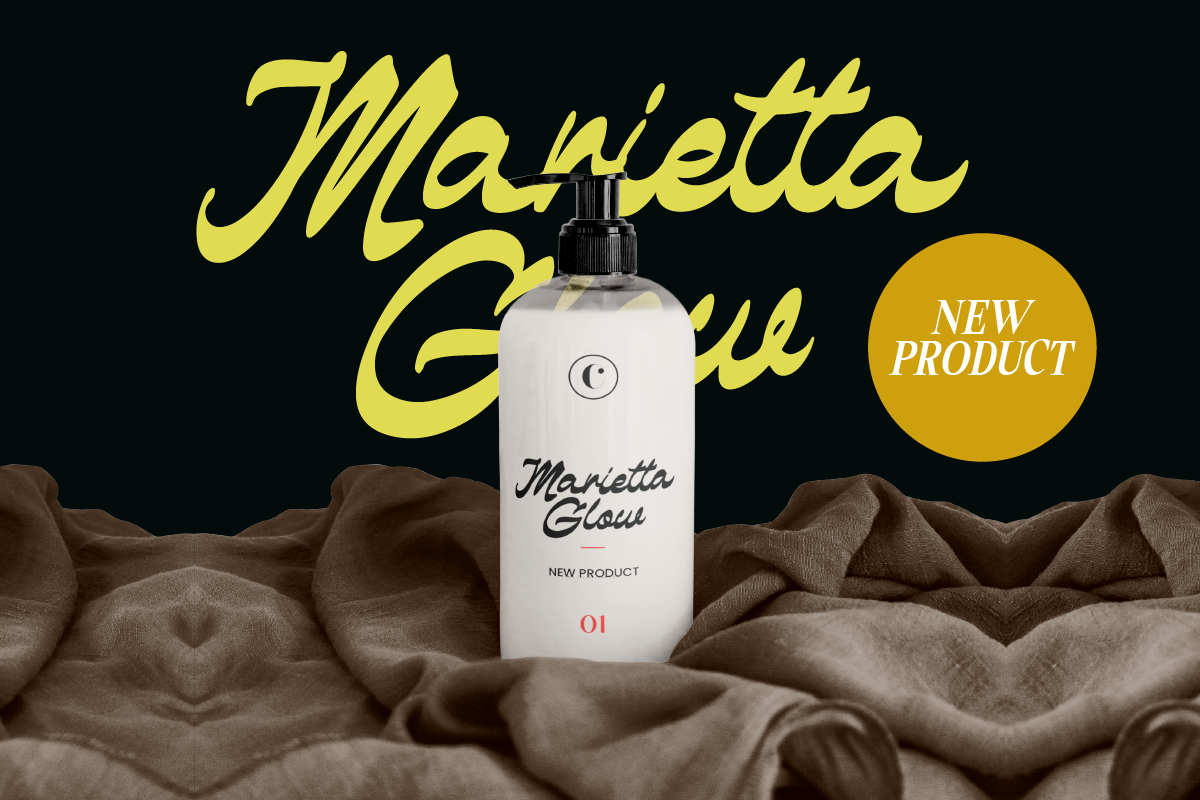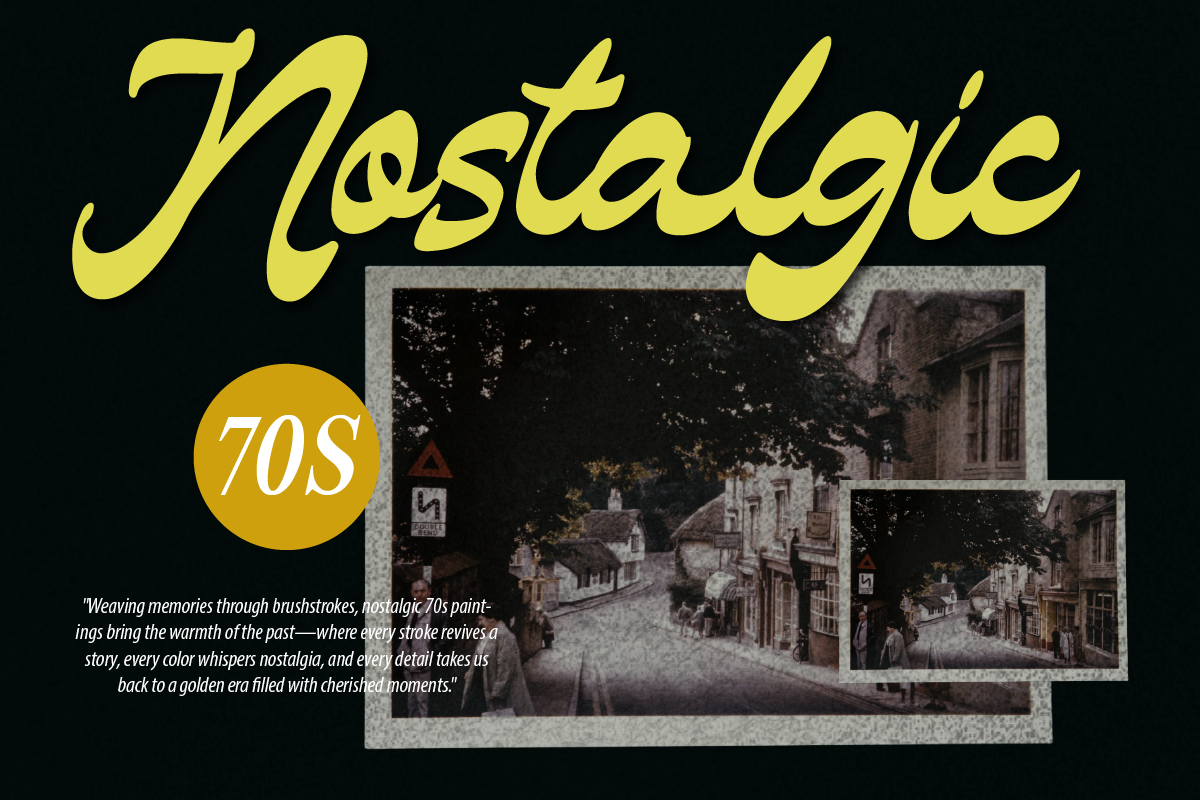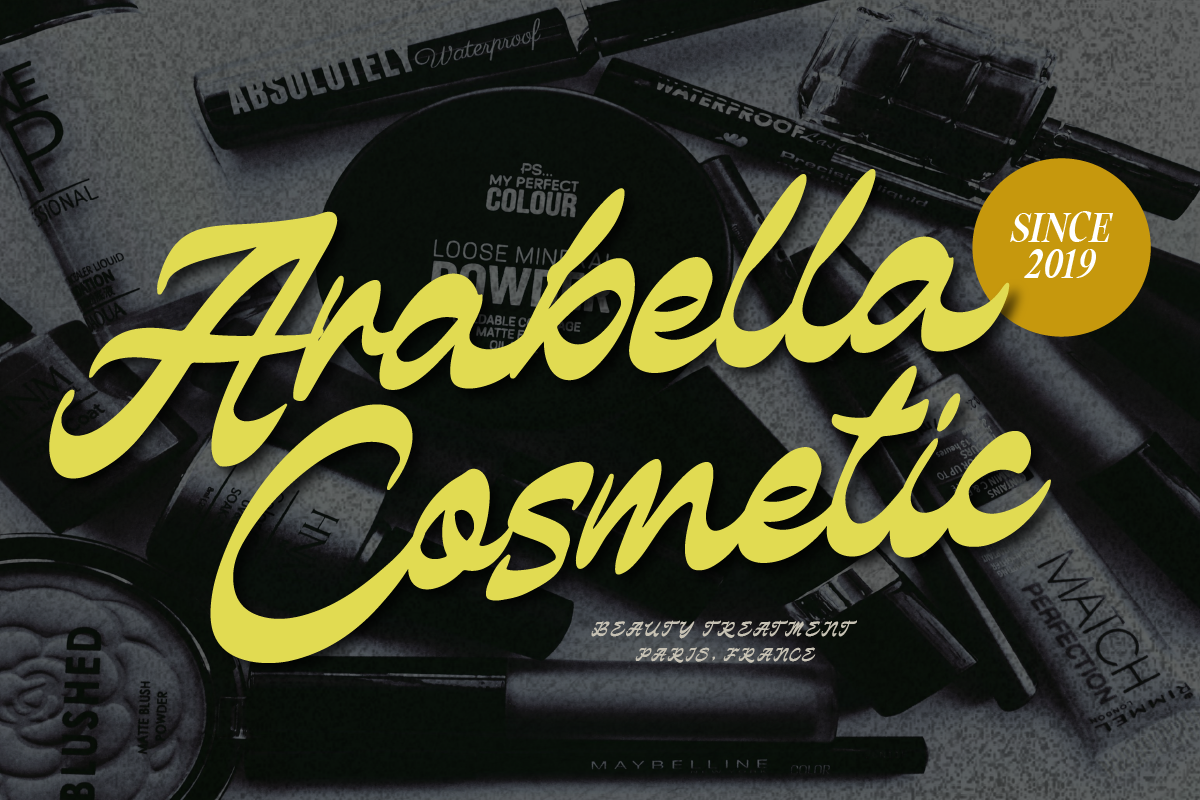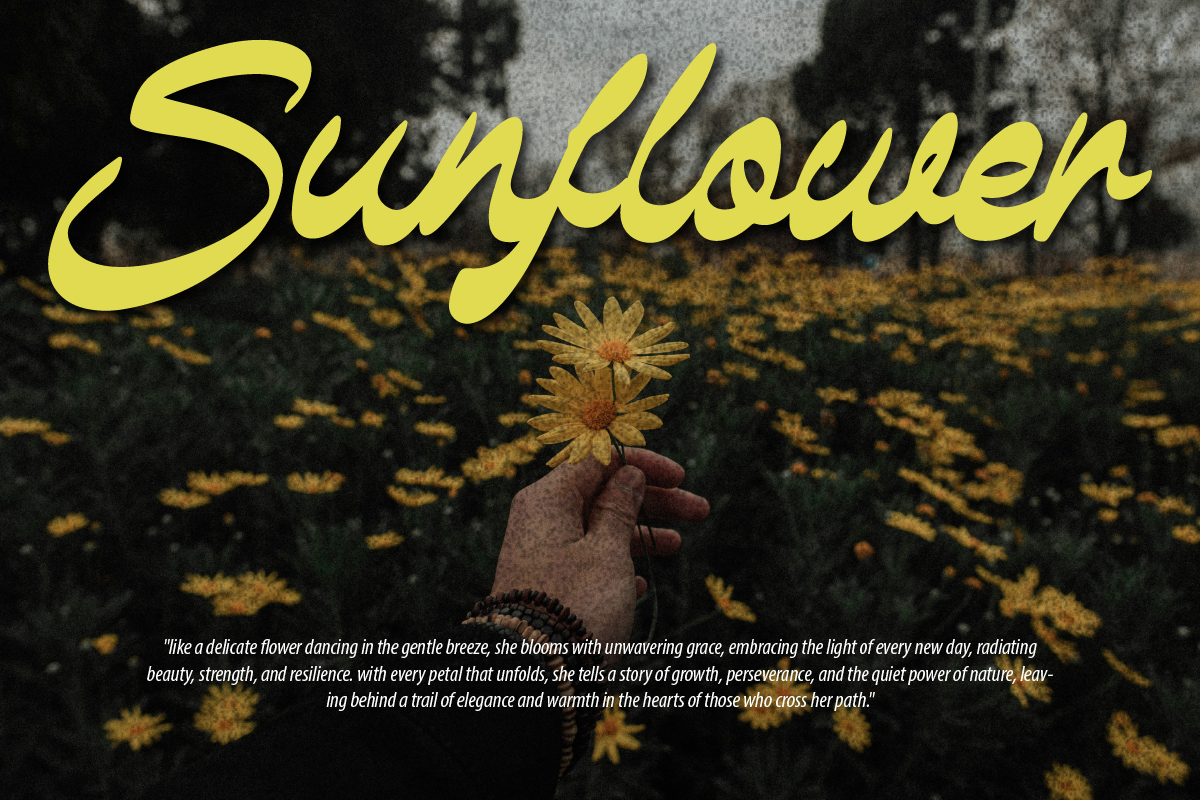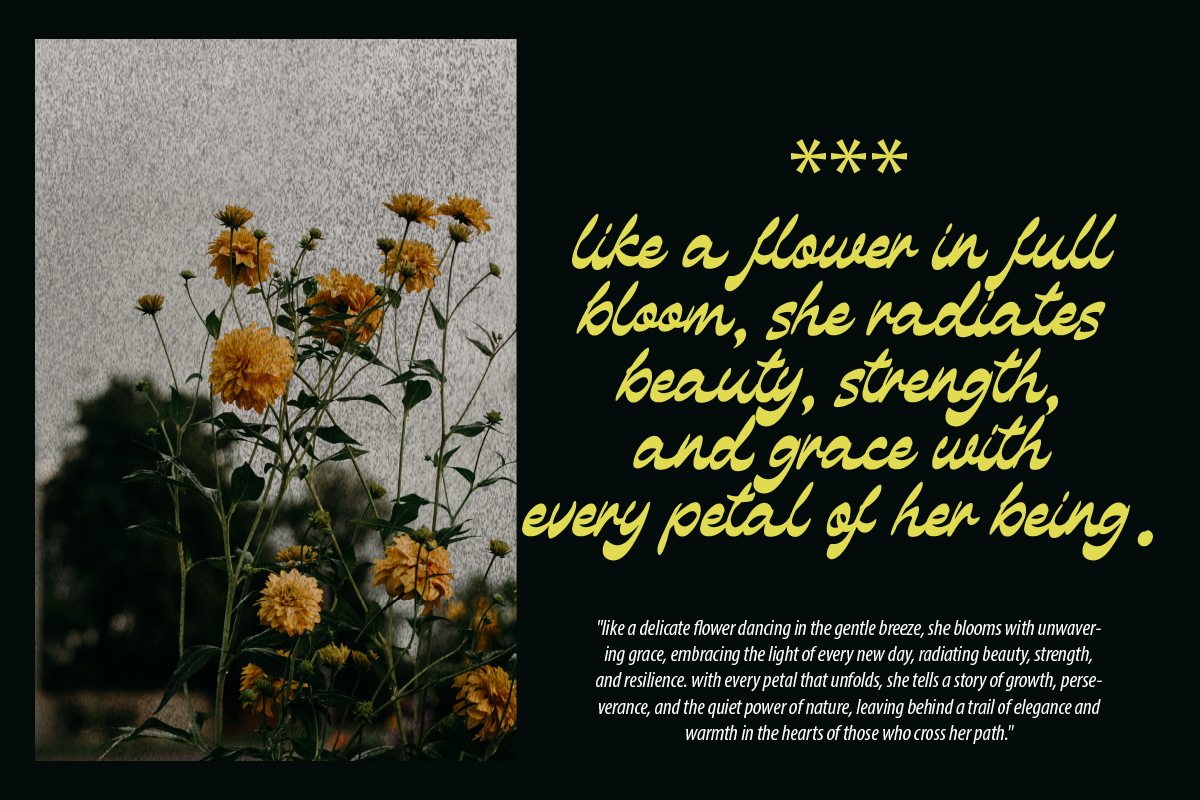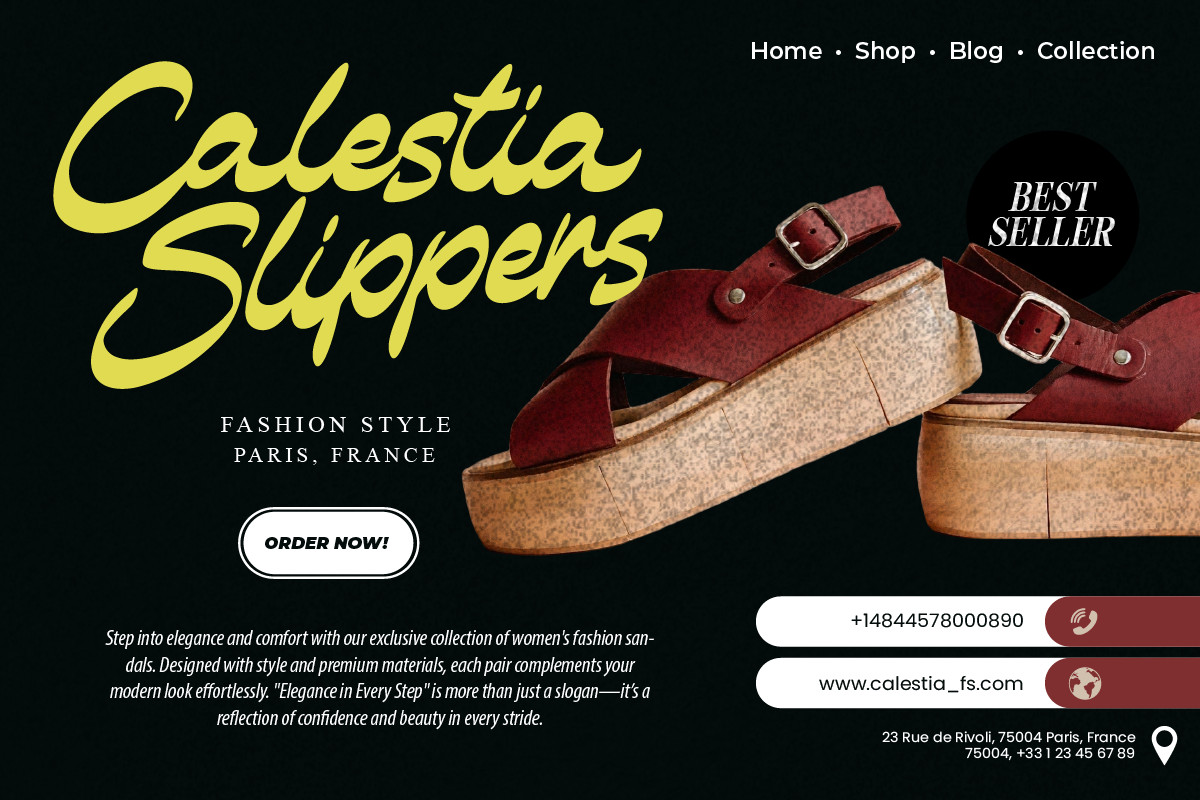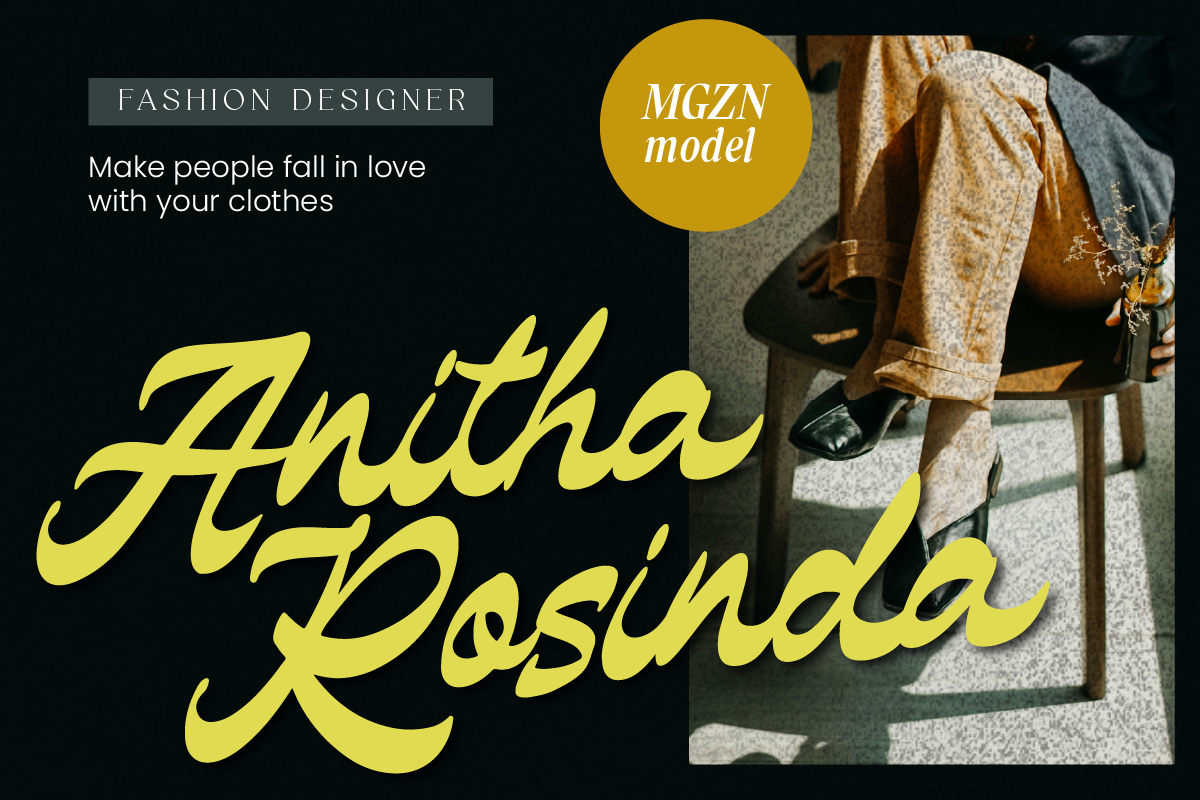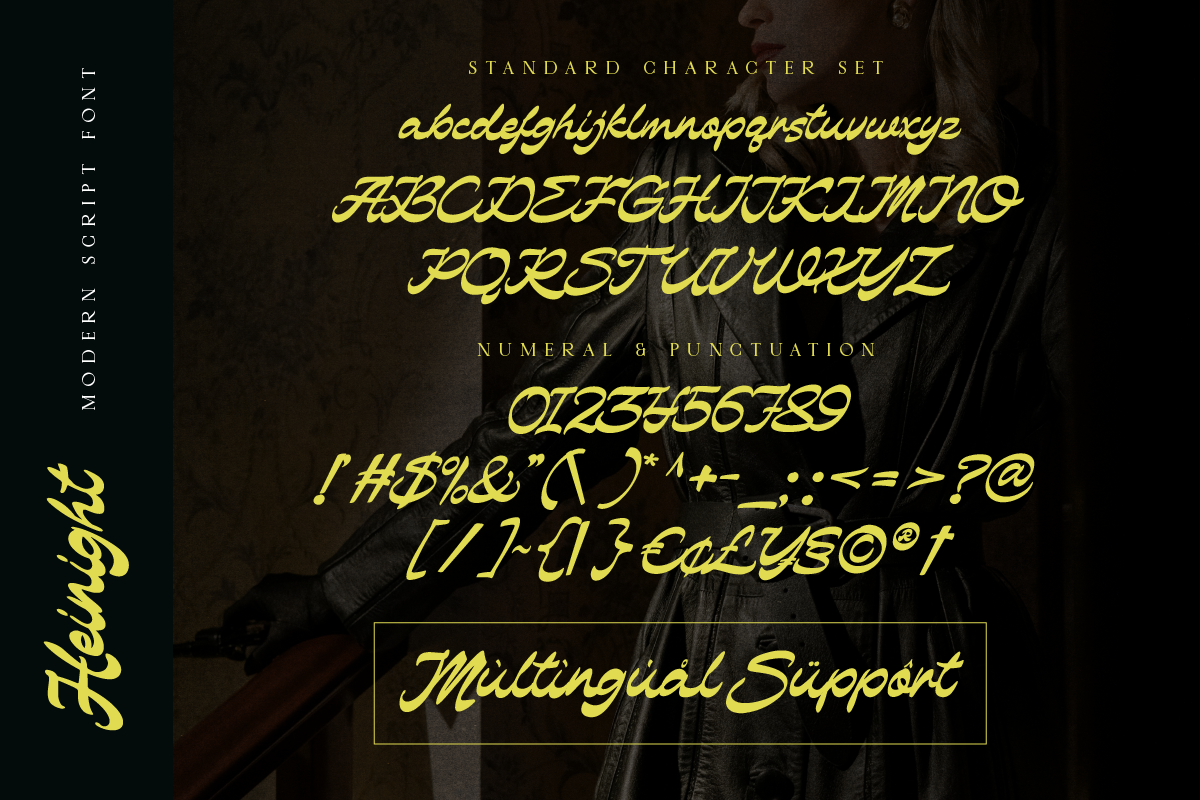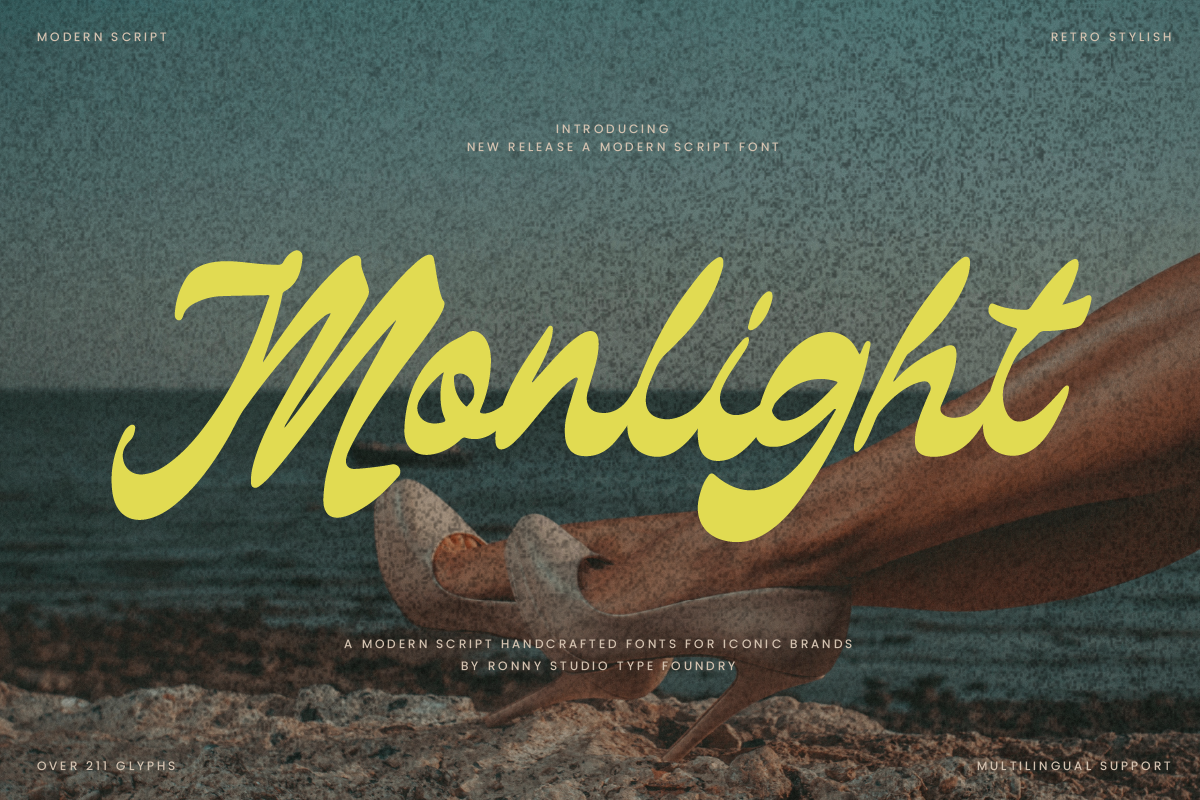
Monlight Retro Modern Script Font
Monlight – Retro Modern Script Font for Elegant and Vintage Designs
Introducing Monlight, a retro-inspired modern script font that effortlessly blends elegance and vintage charm. Perfect for branding, logos, invitations, social media, and various design projects, Monlight brings a touch of classic sophistication with a modern twist. Its smooth curves and stylish ligatures make it a standout choice for both digital and print applications.
- Elegant Retro Style – Blends modern and vintage script elements for a timeless design.
- Versatile Design – Ideal for branding, logos, posters, packaging, social media, and more.
- Uppercase & Lowercase – Full character set with stylish alternates and ligatures.
- Multilingual Support – Covers multiple languages for global projects.
- Elegant logo designs and brand identities
- Vintage-inspired packaging and product labels
- Wedding invitations, cards, and event stationery
- Social media graphics and promotional materials
- Editorial layouts and magazine covers
- Fashion, beauty, and lifestyle designs
Elevate your design projects with Monlight and bring timeless elegance to your typography.